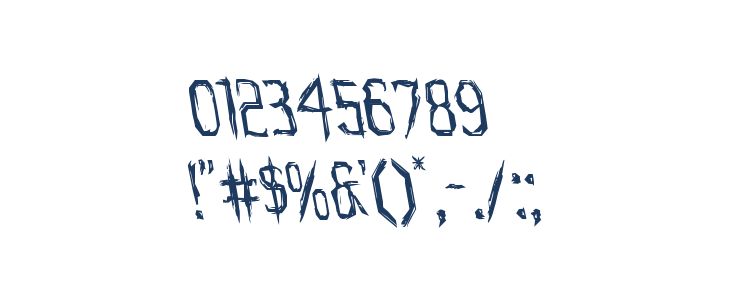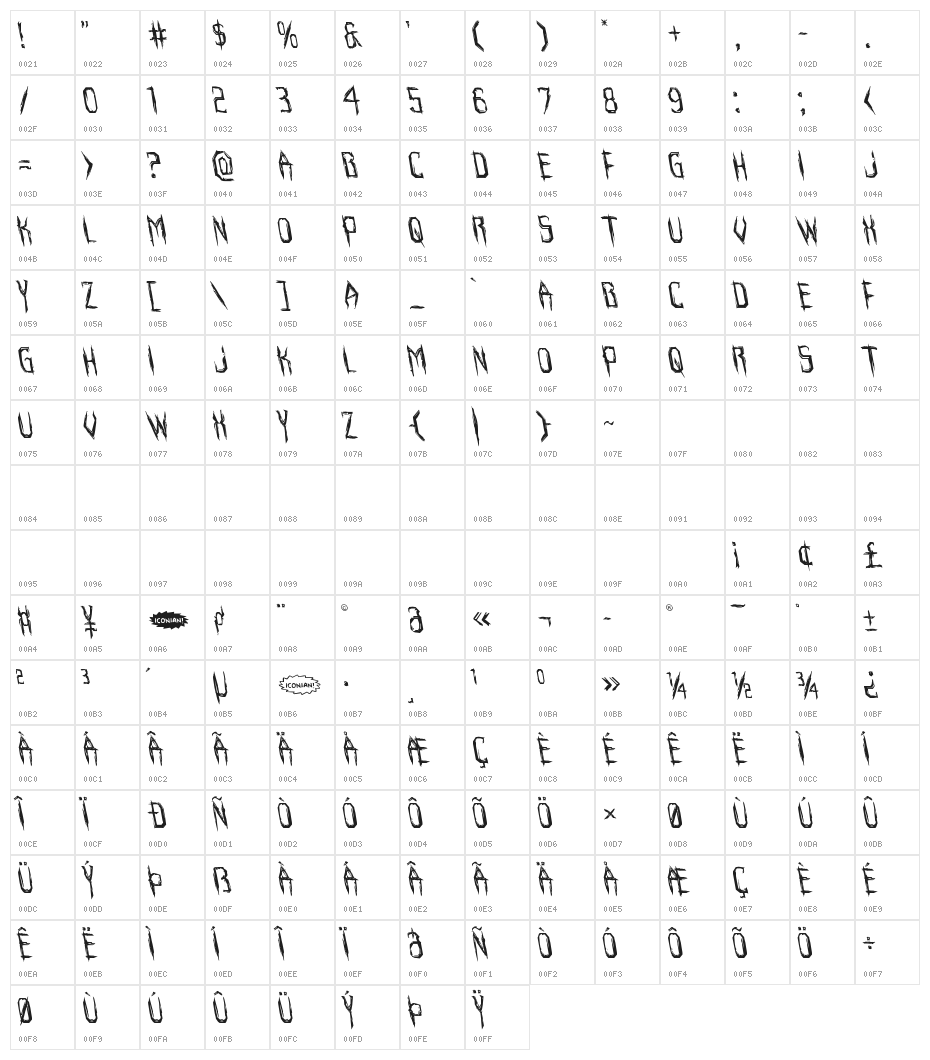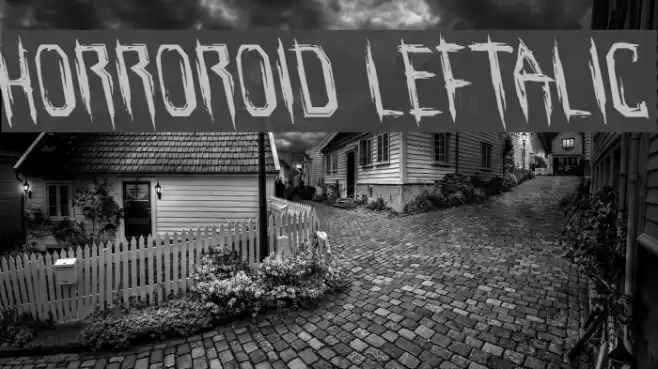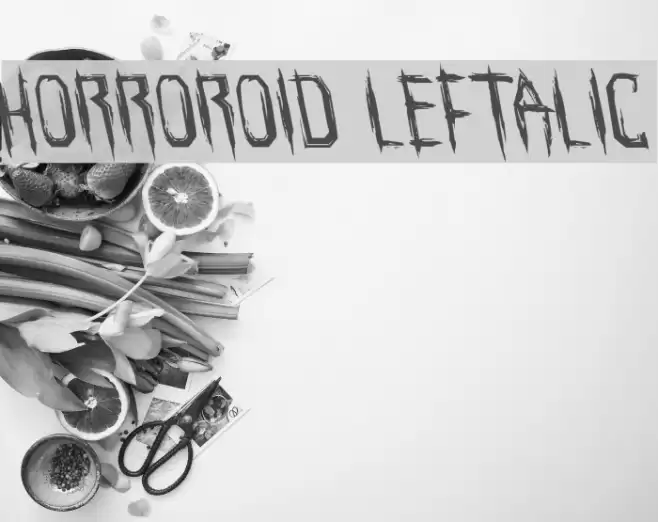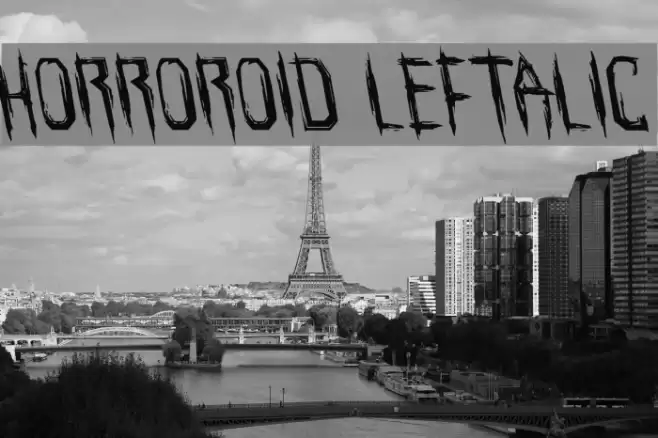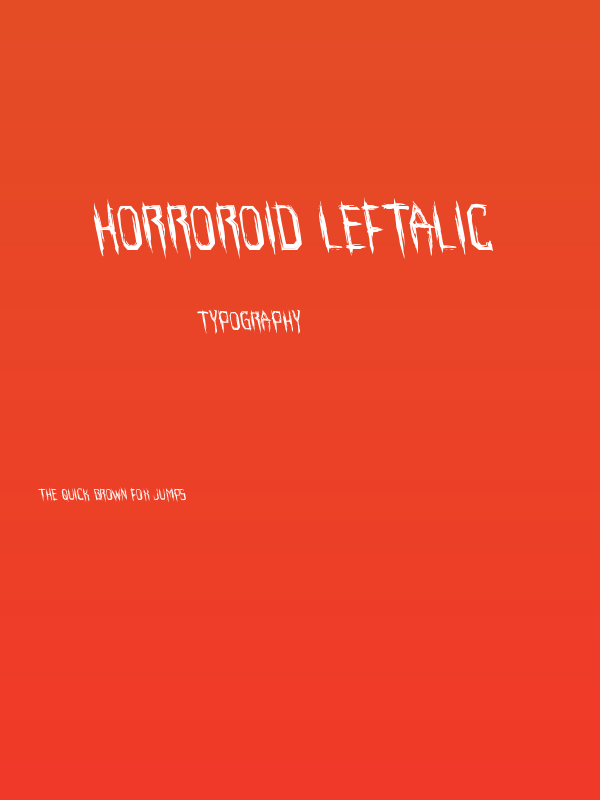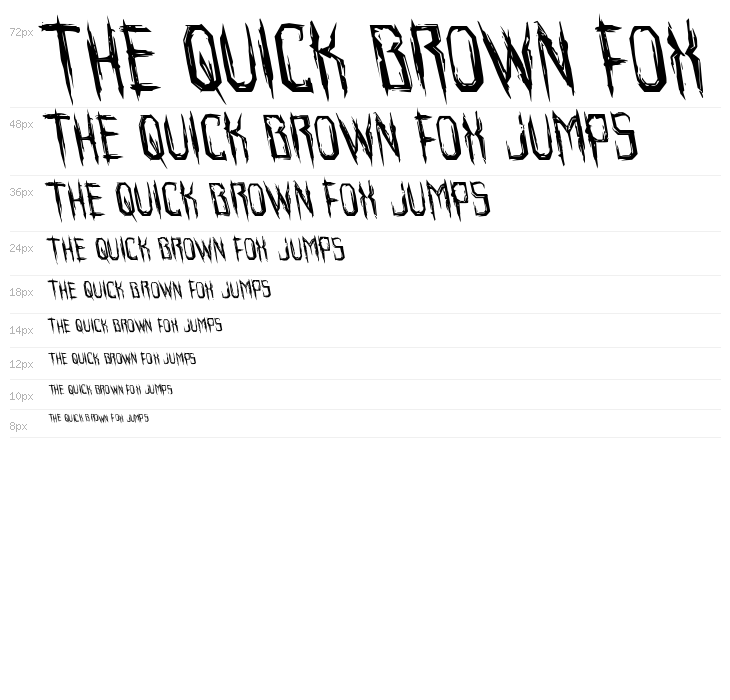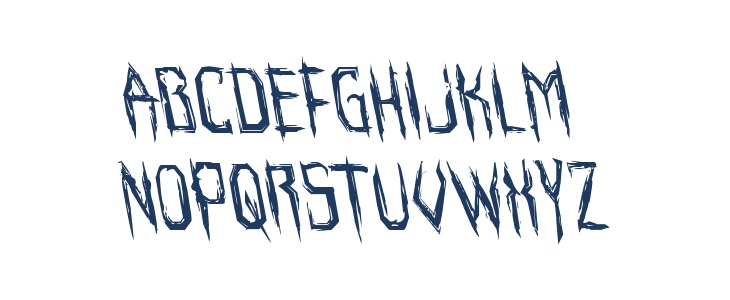
Horroroid Leftalic Font
Horroroid Leftalic Description
This font exudes a chilling, jagged aesthetic, reminiscent of horror and thriller themes. Each character is sharply angled, with irregular, spiky edges that create a sense of unease and tension. The strokes are uneven, giving the impression of being hand-carved or scratched, enhancing its eerie and unsettling vibe. The uppercase and lowercase letters maintain a consistent style, with numbers and special characters following suit, ensuring a cohesive look across all text. This font is perfect for projects that aim to evoke fear or suspense, such as horror movie posters, Halloween event flyers, or spooky-themed merchandise.